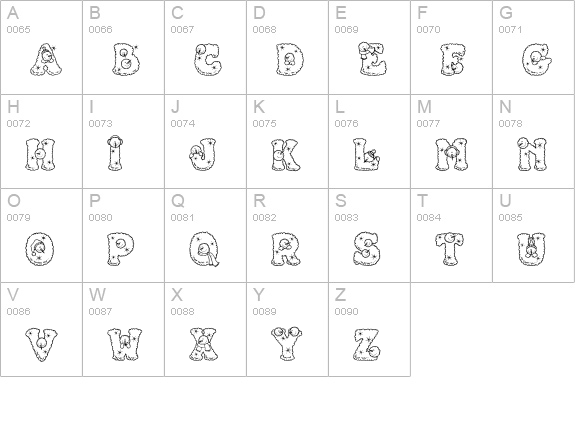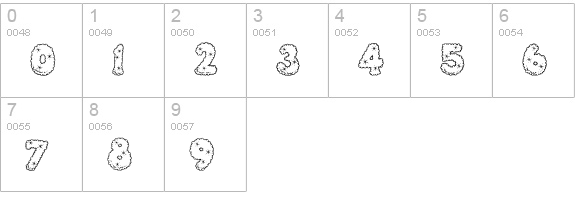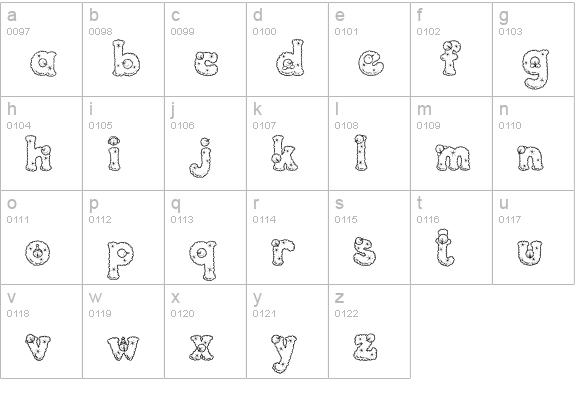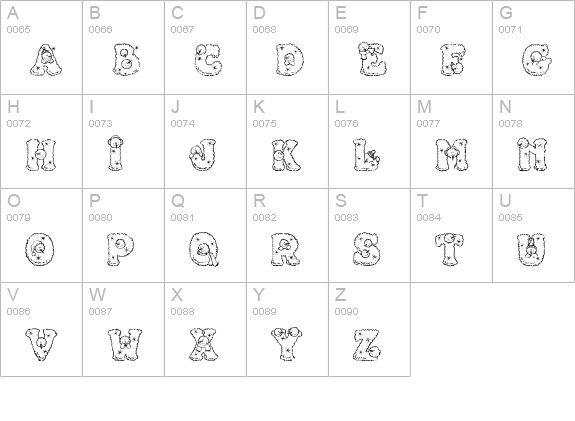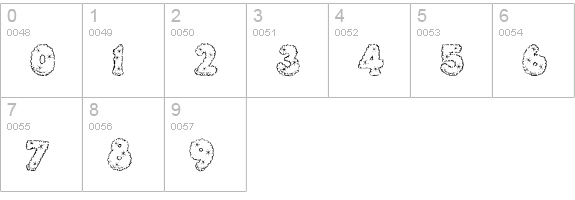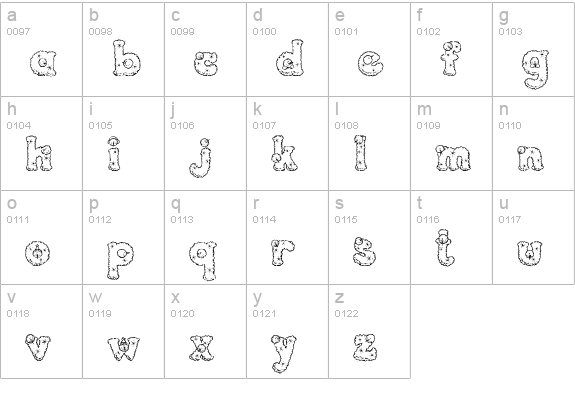
PC Snowballs Font Details
Introducing PC Snowballs font, a whimsical and charming typeface that is guaranteed to add a touch of playfulness to any design project. With its delicate curves and rounded edges, PC Snowballs font exudes a sense of warmth and joy, making it perfect for creating eye-catching headlines, greeting cards, invitations, and more. But the best part? PC Snowballs font is completely free! That's right, this delightful typeface can be yours without spending a single penny. Simply head over to FontsMarket.com, where PC Snowballs font is freely available for download. Whether you're designing a winter-themed poster, a children's book cover, or a festive holiday card, PC Snowballs font will bring a sense of fun and cheer to your creations. Its unique snowball-inspired letterforms will make your text stand out and capture the hearts of your audience. So why wait? Embrace the spirit of winter and let your creativity run wild with PC Snowballs font. Download it now for free at FontsMarket.com and let your designs shine with a touch of snowy magic.